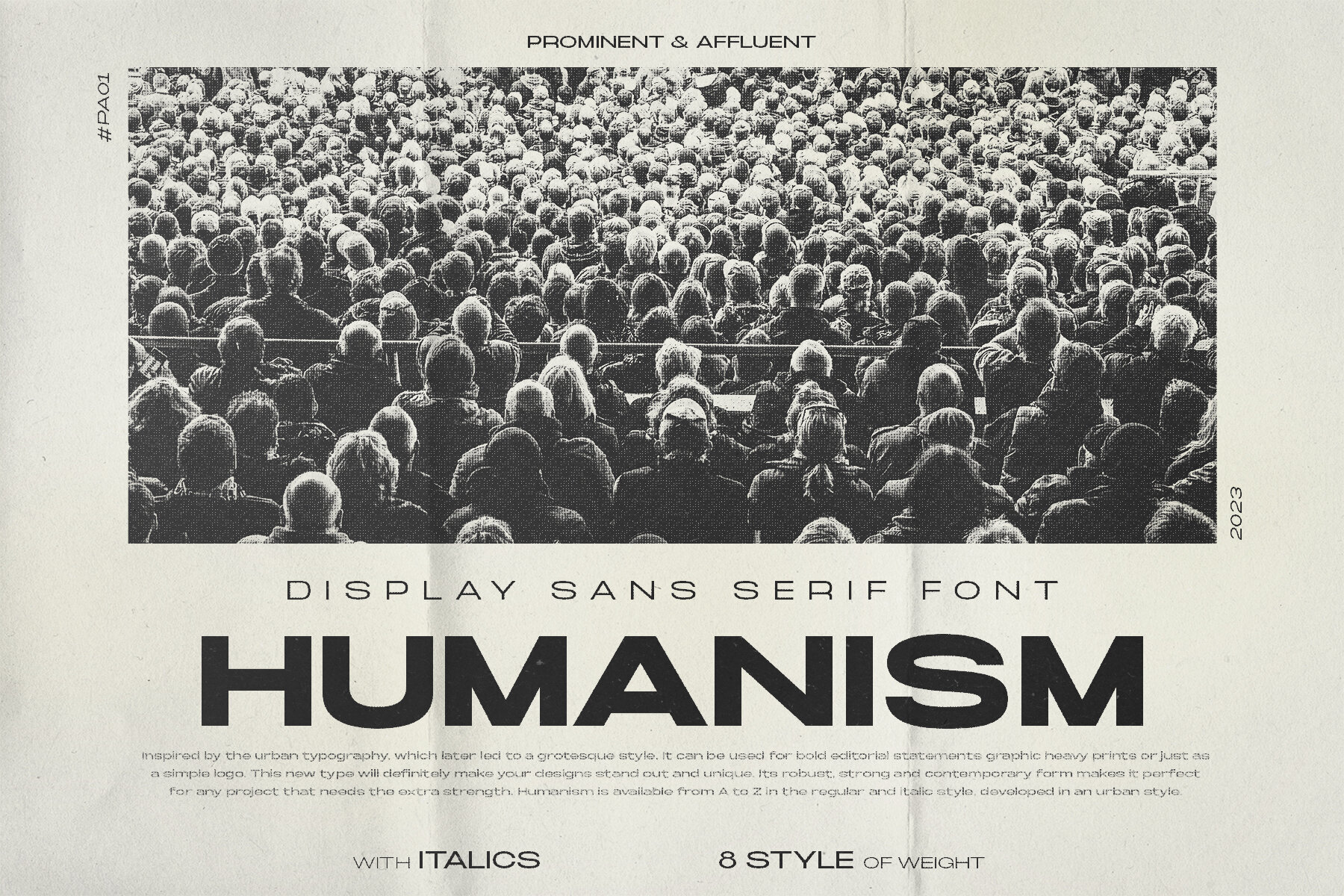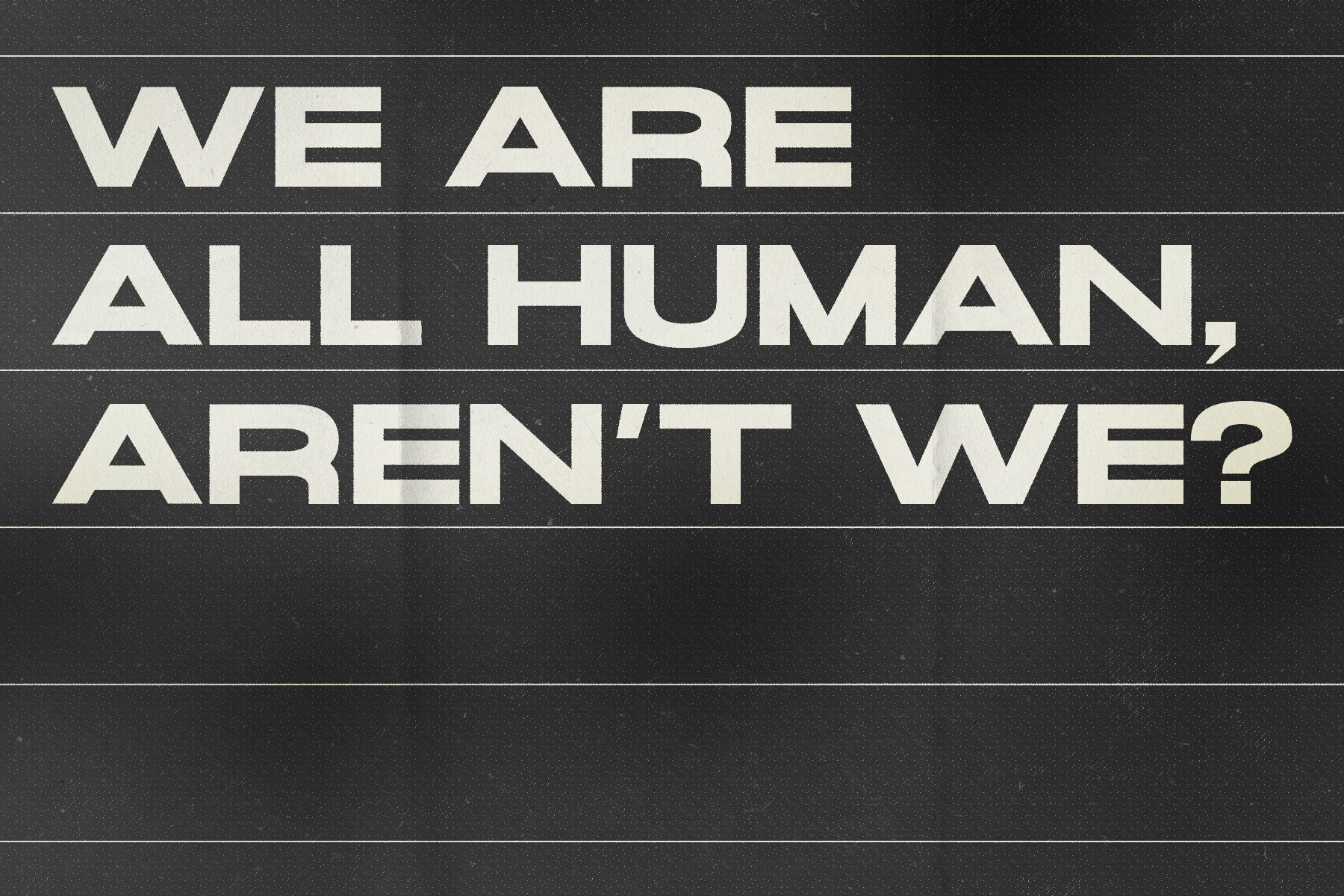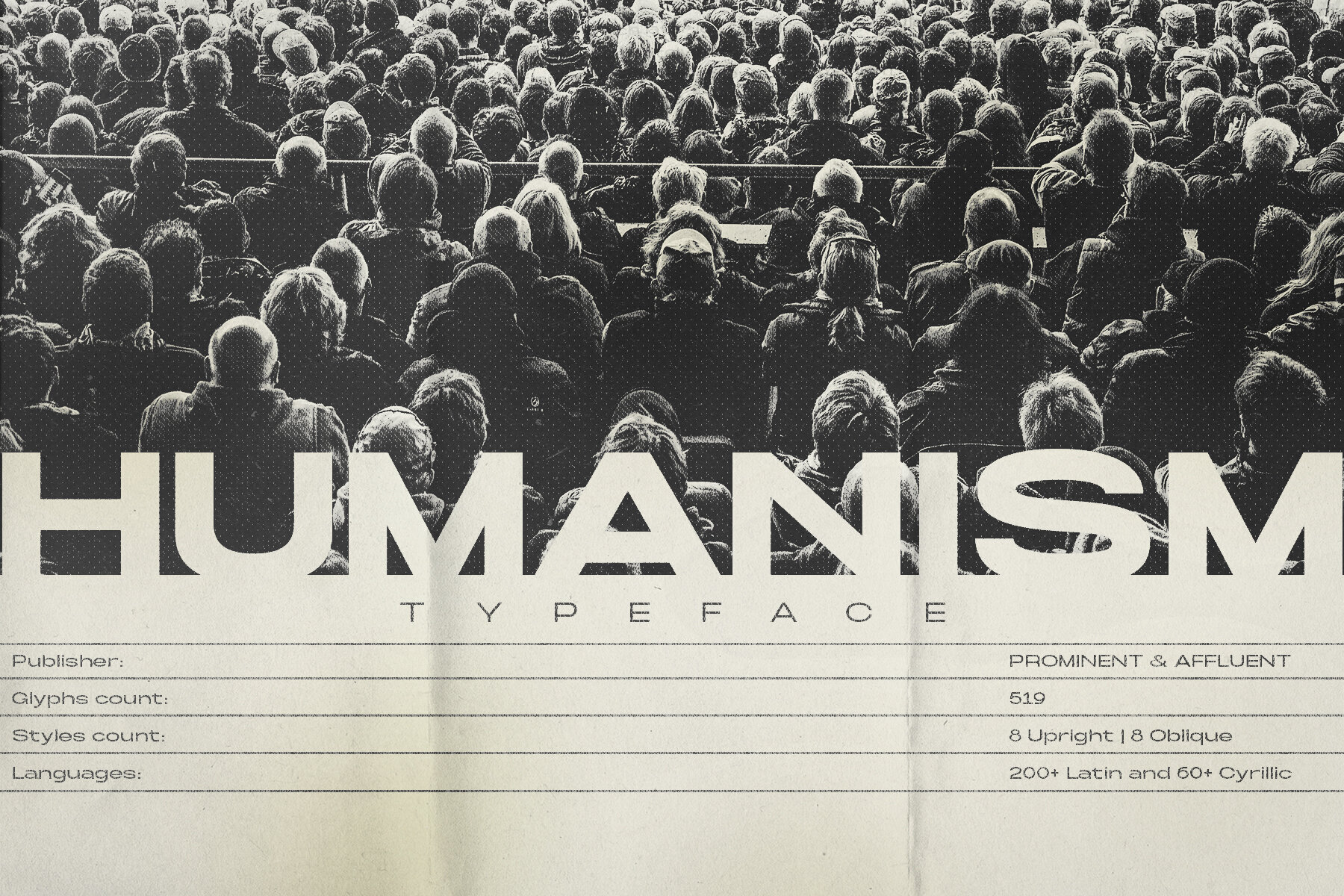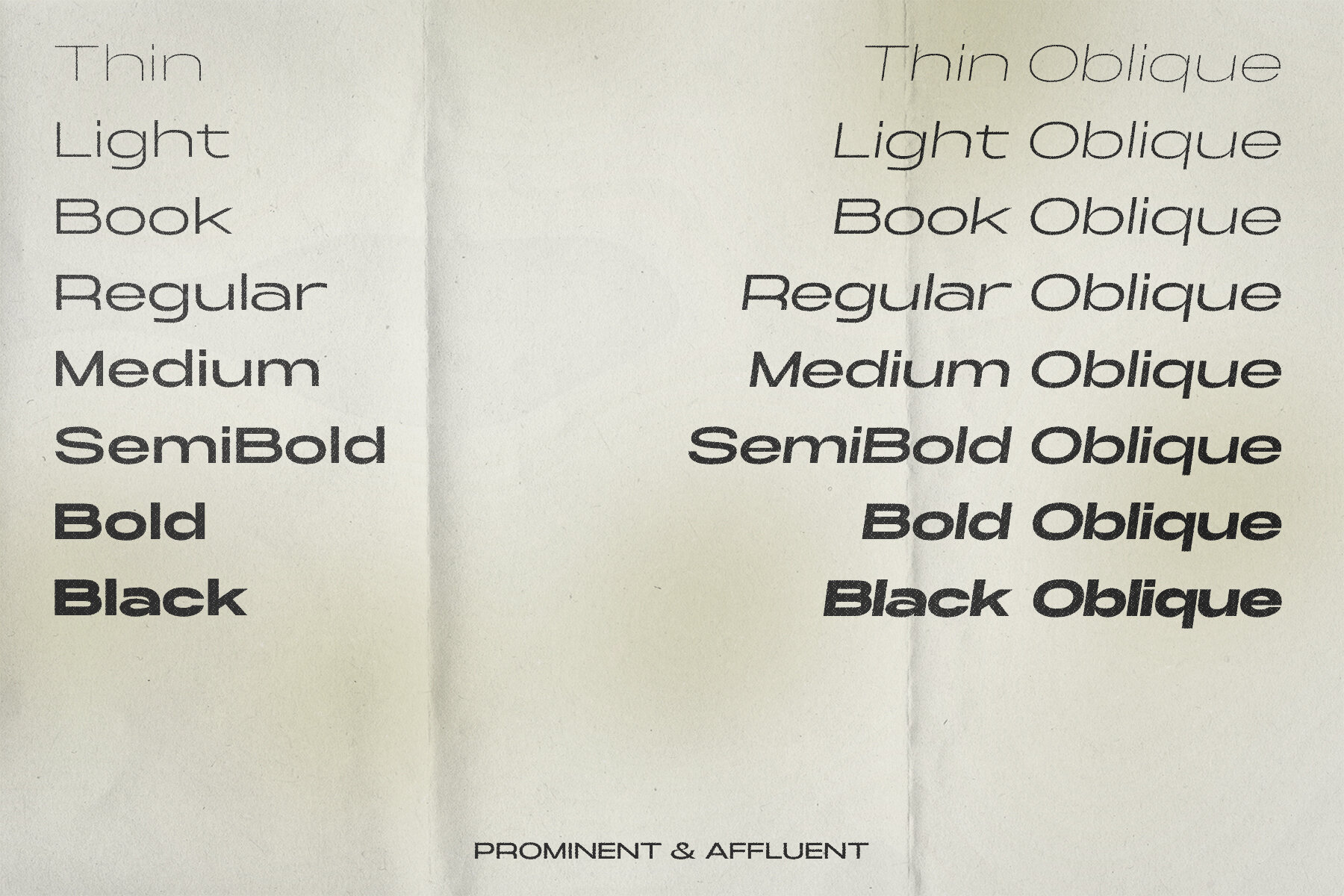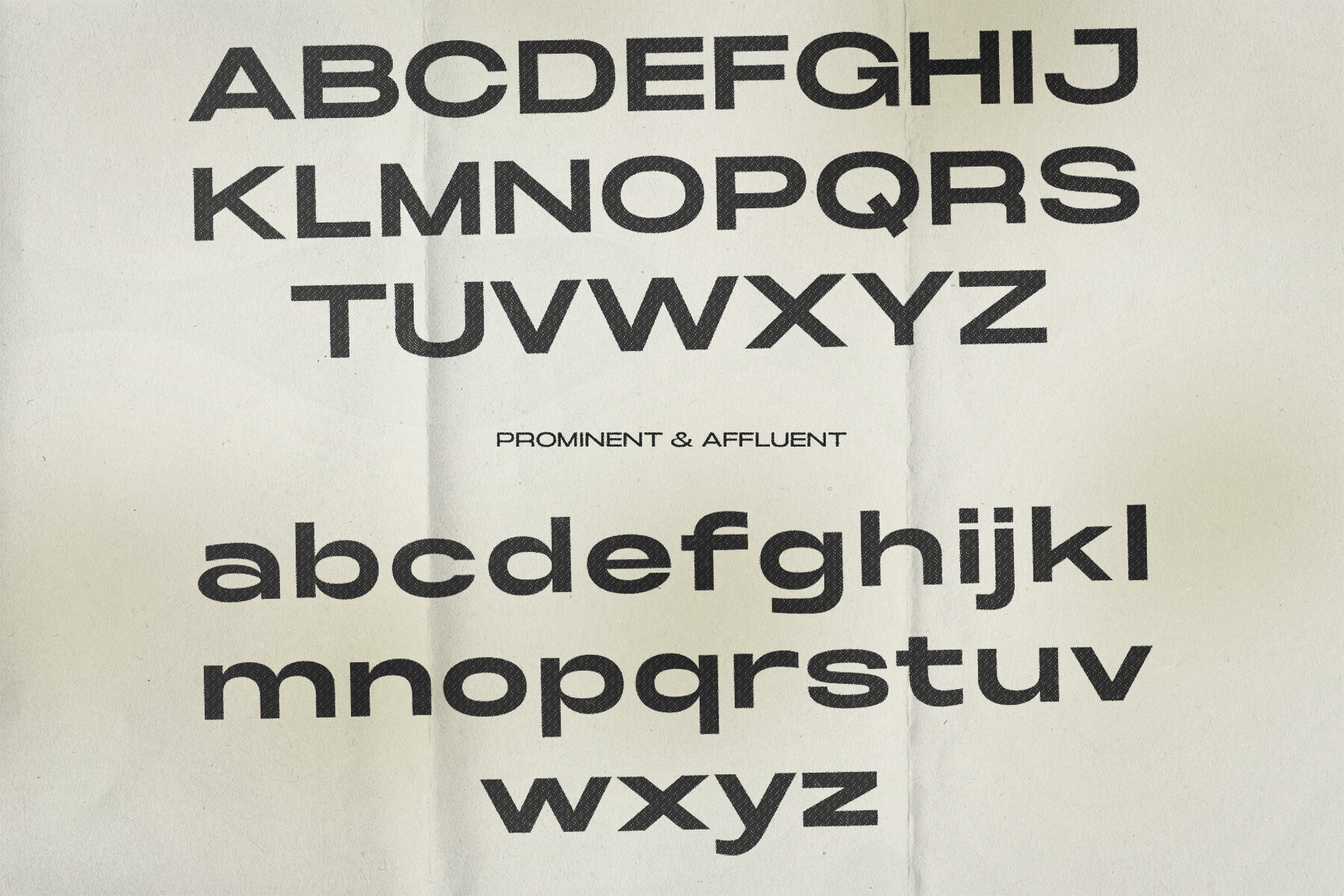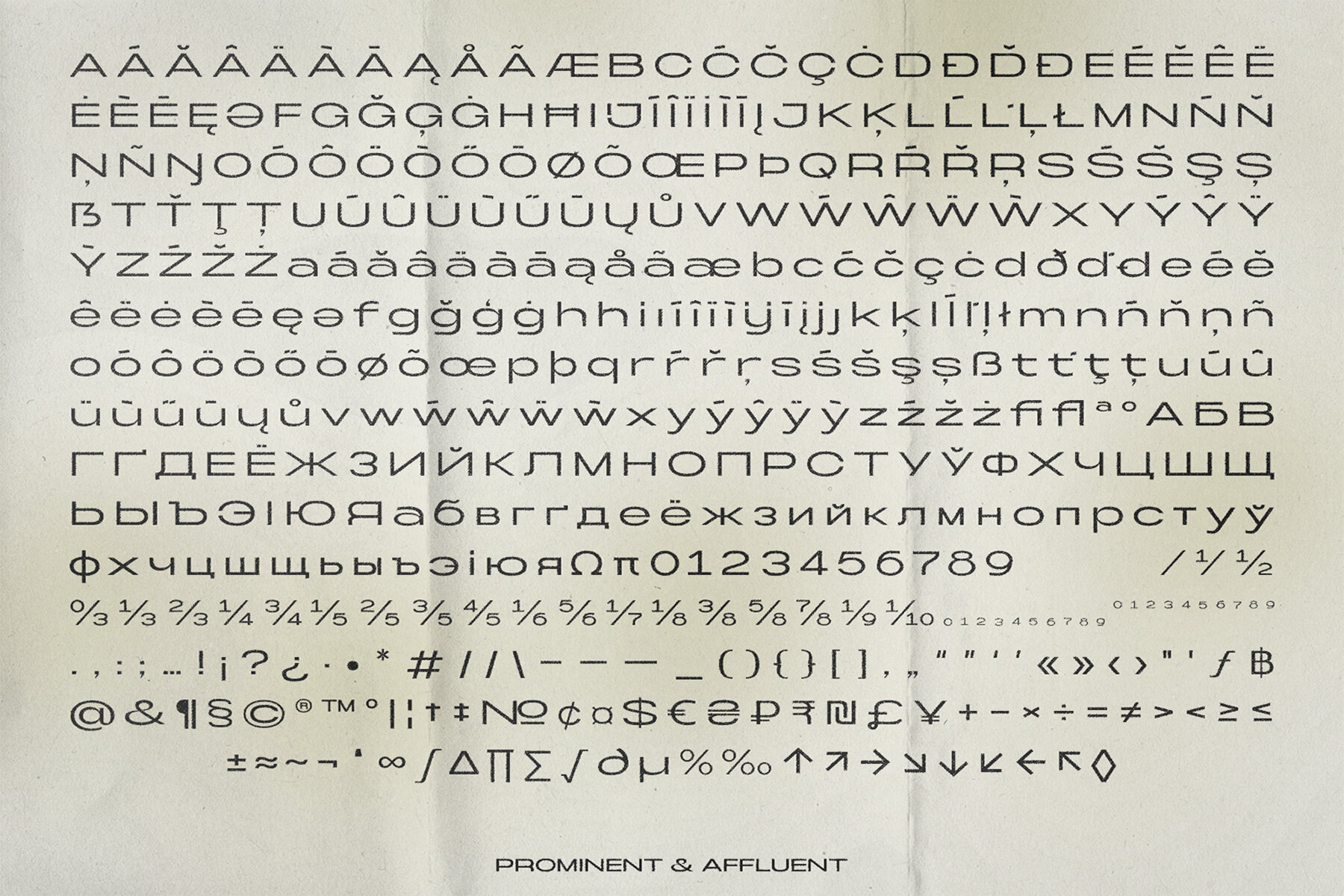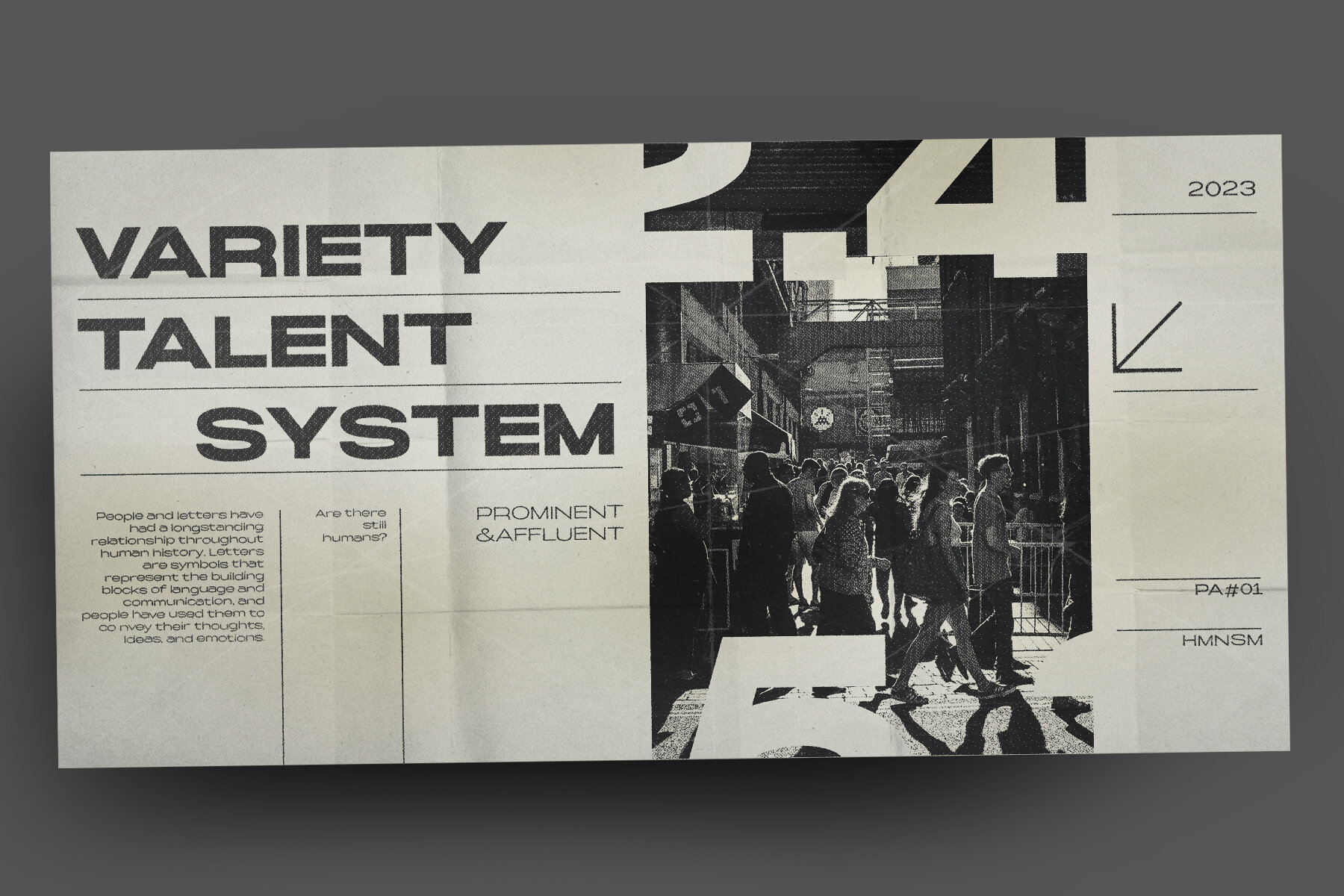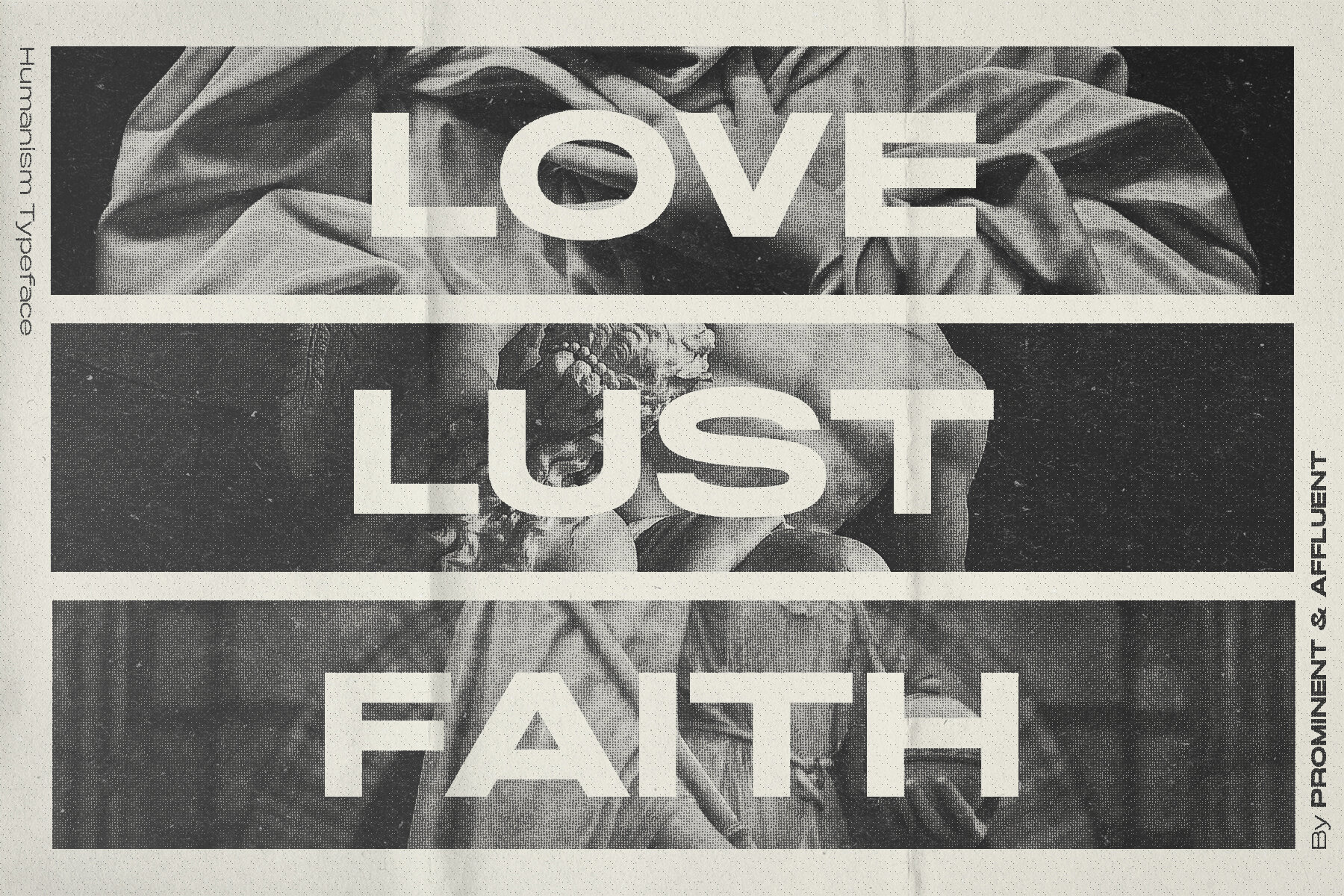
Humanism Font
Inspired by the urban typography, which later led to a grotesque style. It can be used for bold editorial statements graphic heavy prints or just as a simple logo. This new type will definitely make your designs stand out and unique. Its robust, strong, and contemporary form makes it perfect for any project that needs extra strength. Humanism is available from A to Z in the regular and italic style, developed in an urban style.